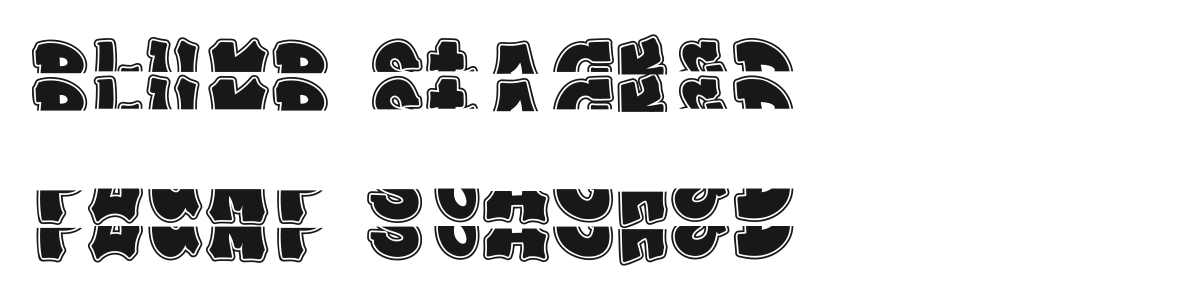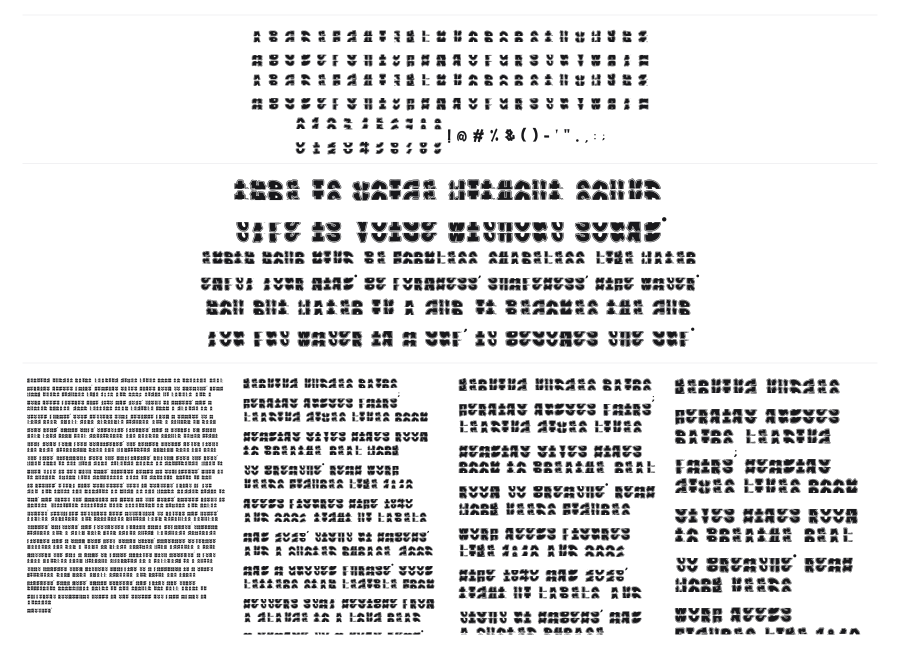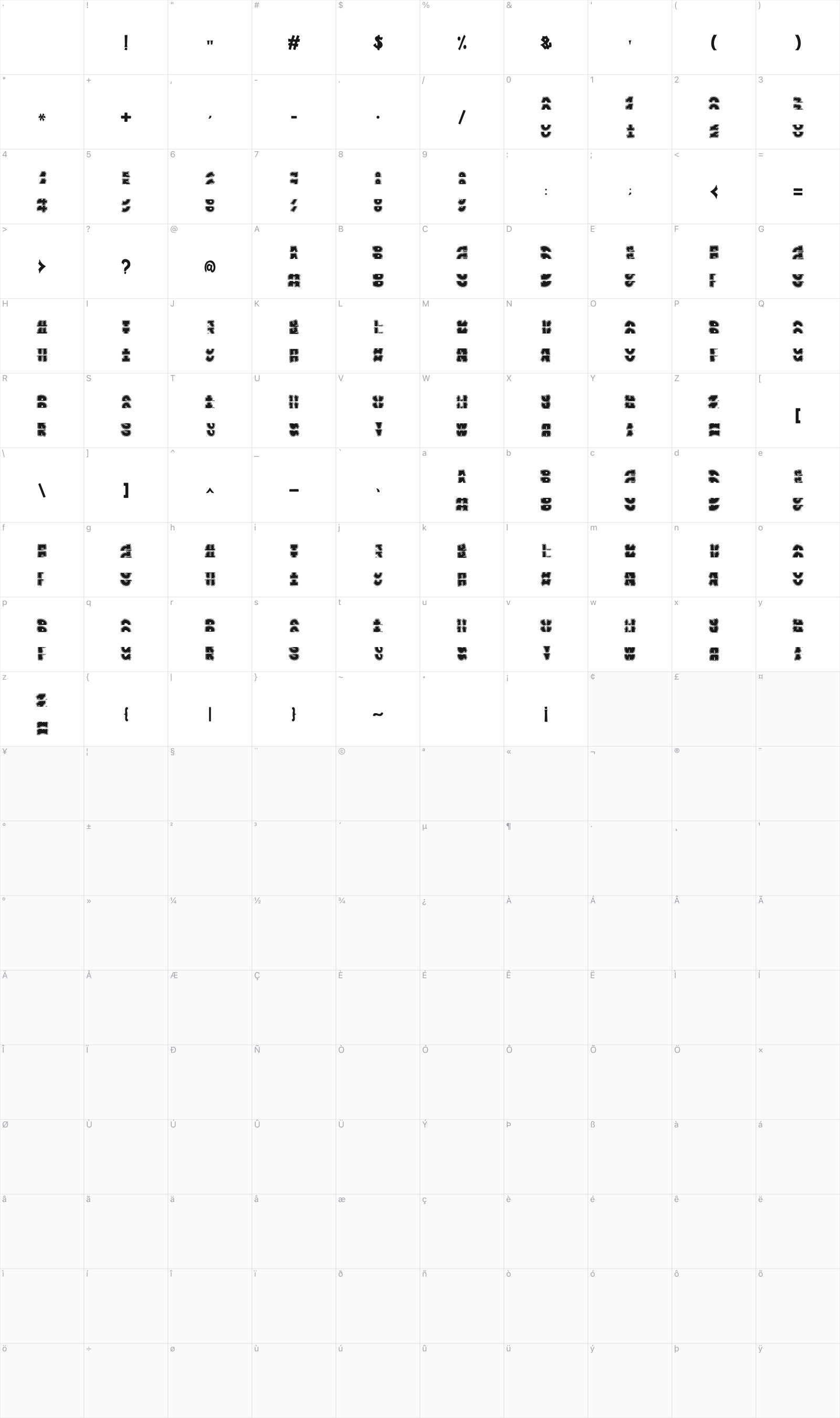
Plump Stacked
Plump Stacked is a heavy, rounded varsity-style display font with a built-in stacked outline effect that gives every character a chunky, hand-painted relief. The wide, squat proportions and soft rounded edges pull directly from 1970s collegiate and sports lettering traditions. It brings loud, retro energy to logos, posters, and apparel graphics.